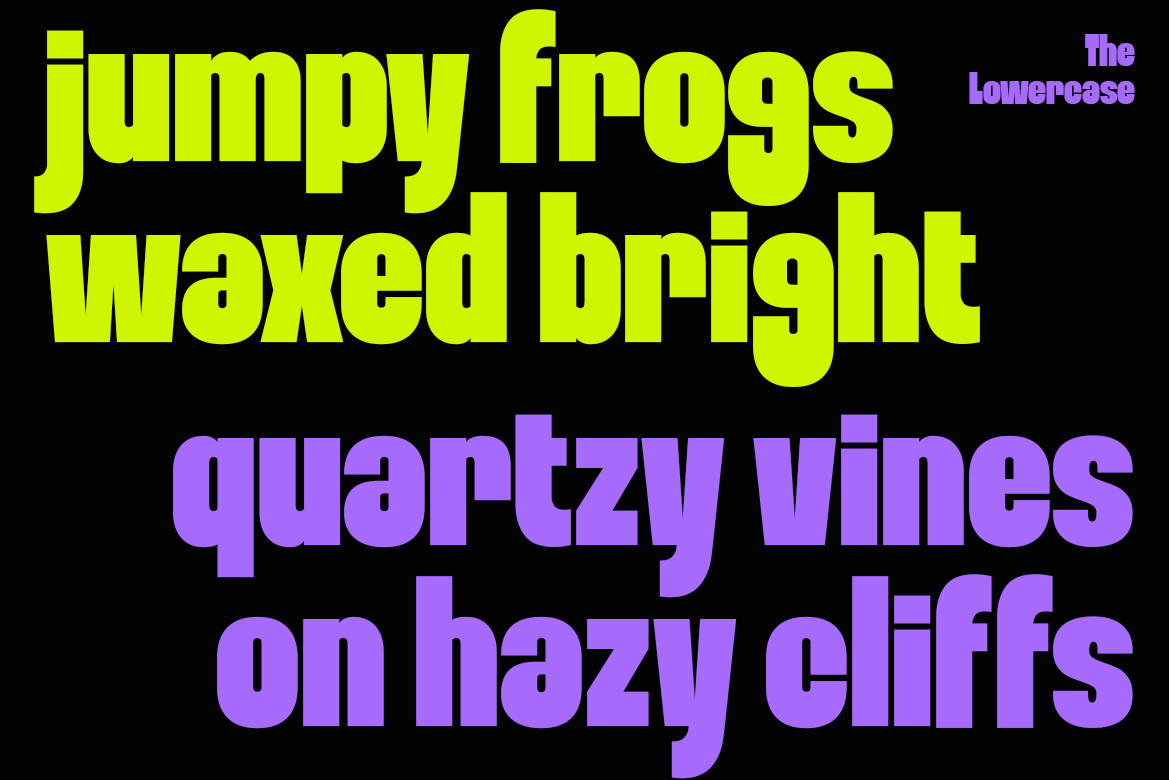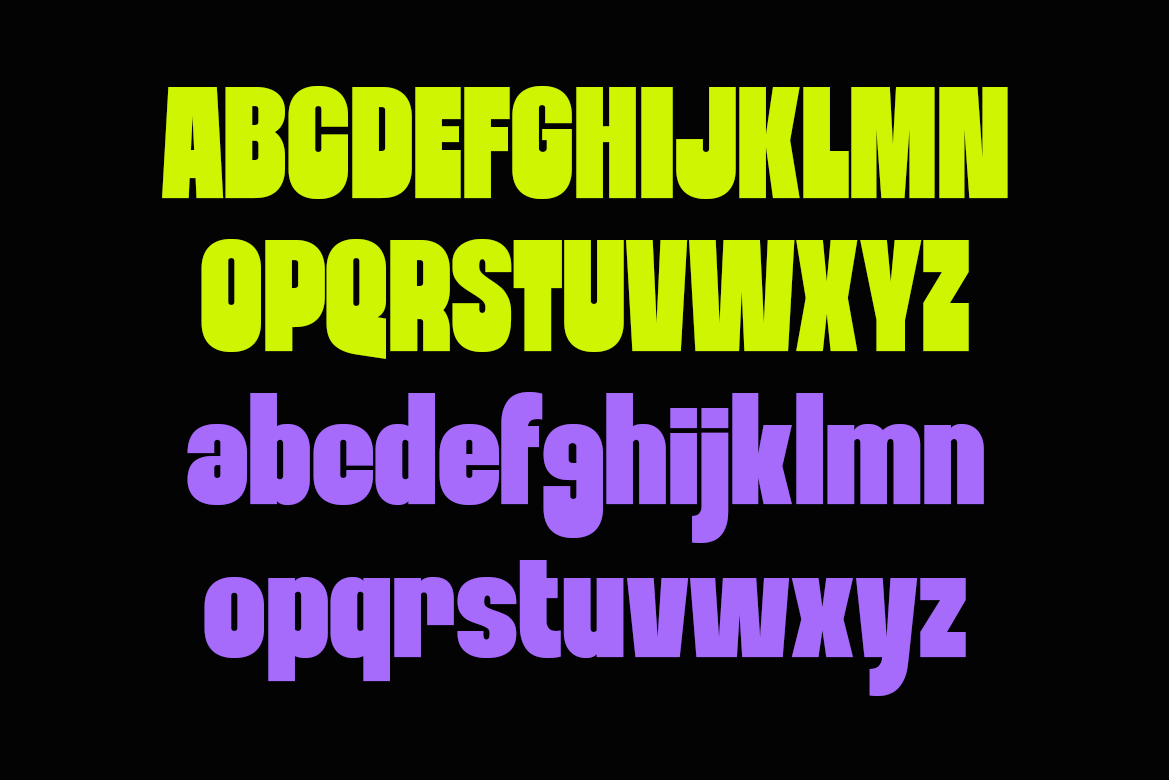
Jeffesta – Bold Retro Pop Fonts Font
Jeffesta – Bold Retro Pop Fonts Font is a versatile typeface ideal for various projects, including logos, branding, posters, blog headers, advertisements. The free version includes a full set of uppercase and lowercase letters, available in OTF format.